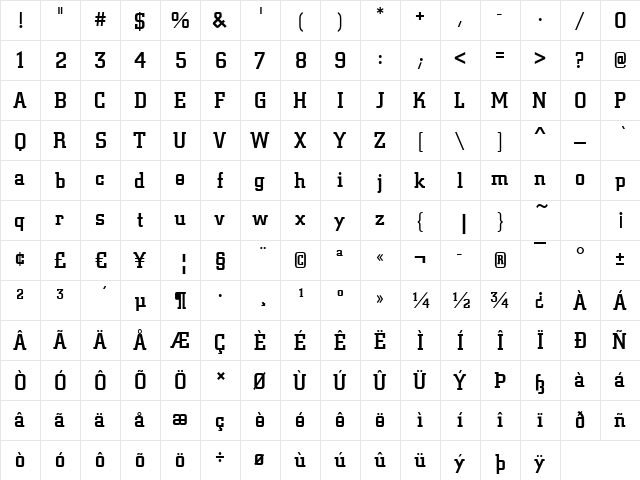
Centrum-Medium Regular
Design Context for Centrum-Medium Typeface
Centrum-Medium takes a measured approach to typography — its balanced proportions and neutral character make it a reliable workhorse for both digital and print work.